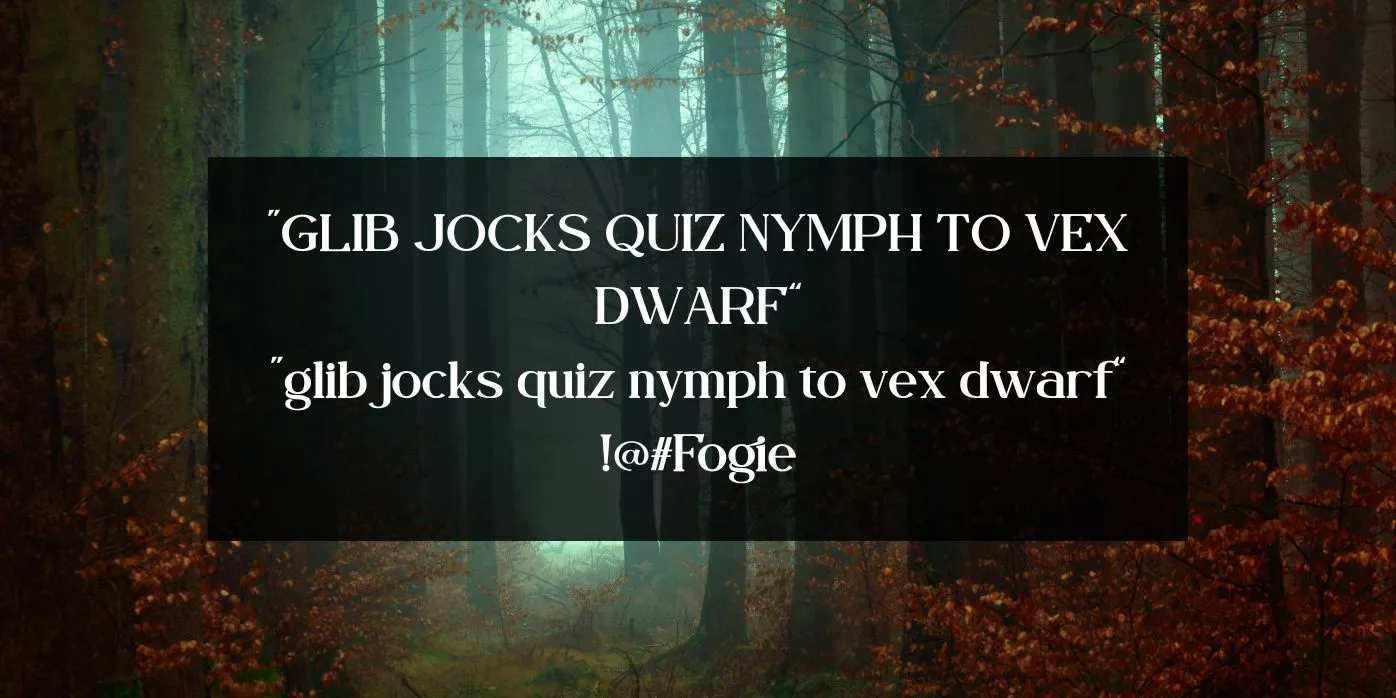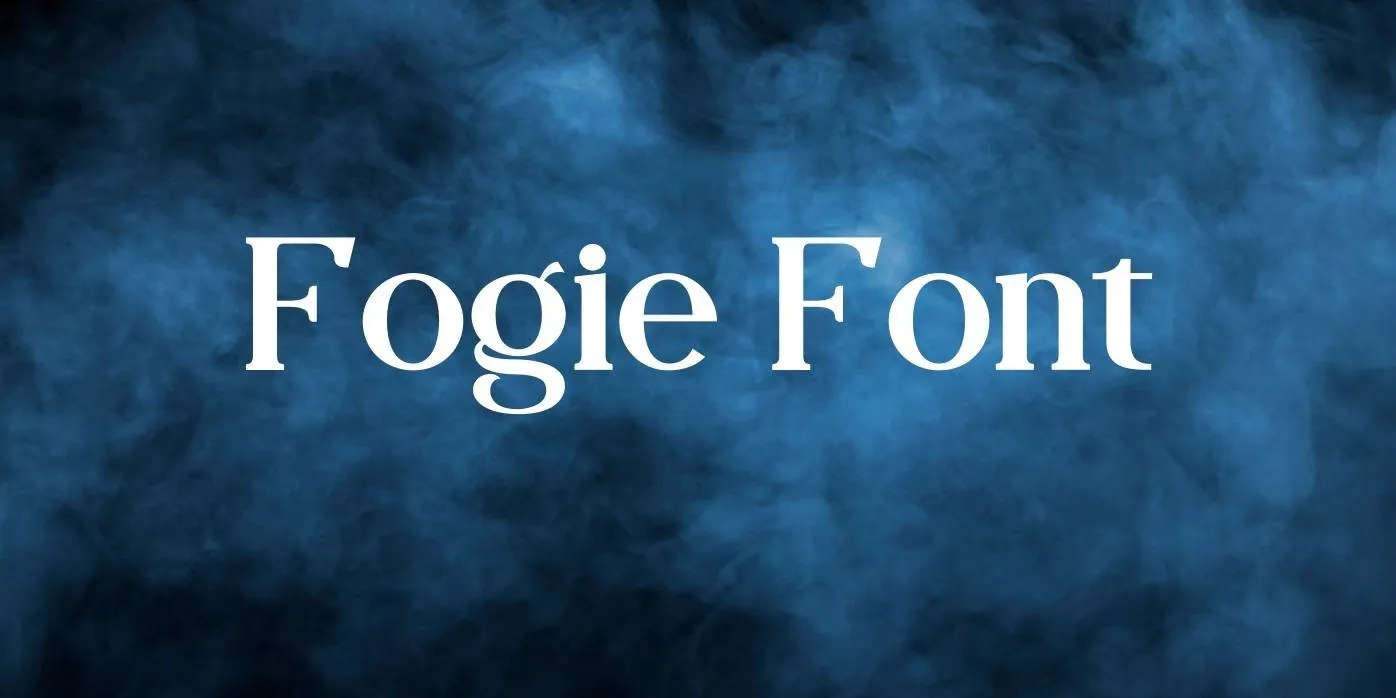
Fogie Font
Fogie Font is a famous typeface that belongs to the serif font family. This classy font family belongs to the serif font family. Serif fonts are known for their traditional and formal appearance. This font is a great choice for any project that requires a sophisticated and luxurious look.
It is well specified for the CSS family. Fogie Font has many unique features that make it stand out from other serif fonts. Firstly, the font includes very thick strokes that give it a bold and powerful look. Secondly, the letters are very tall and thin, which gives the font an elegant and regal appearance.
Its copy and paste function is very classic for text designs. You can use mrs eaves font which has the same style and characters as this one. Finally, the serifs on the letters are very small and delicate, which gives the font a refined and sophisticated look. If you’re looking for a sophisticated font for your next project, then Fogie Font is a great choice.